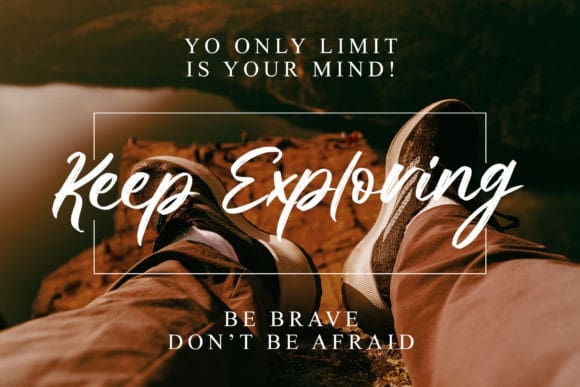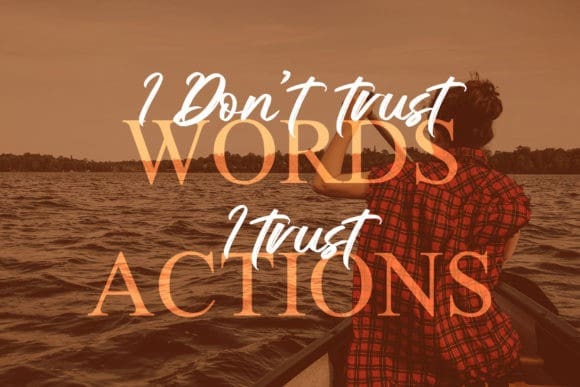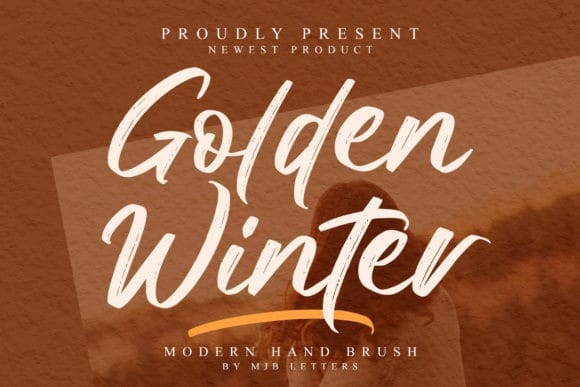
Golden Winter Font
Golden Winter Font is a relaxed, cursive and delicate script font, featuring an elegant flow. No matter the topic, this font will be an incredibly asset to your fonts’ library, as it has the potential to elevate any creation.